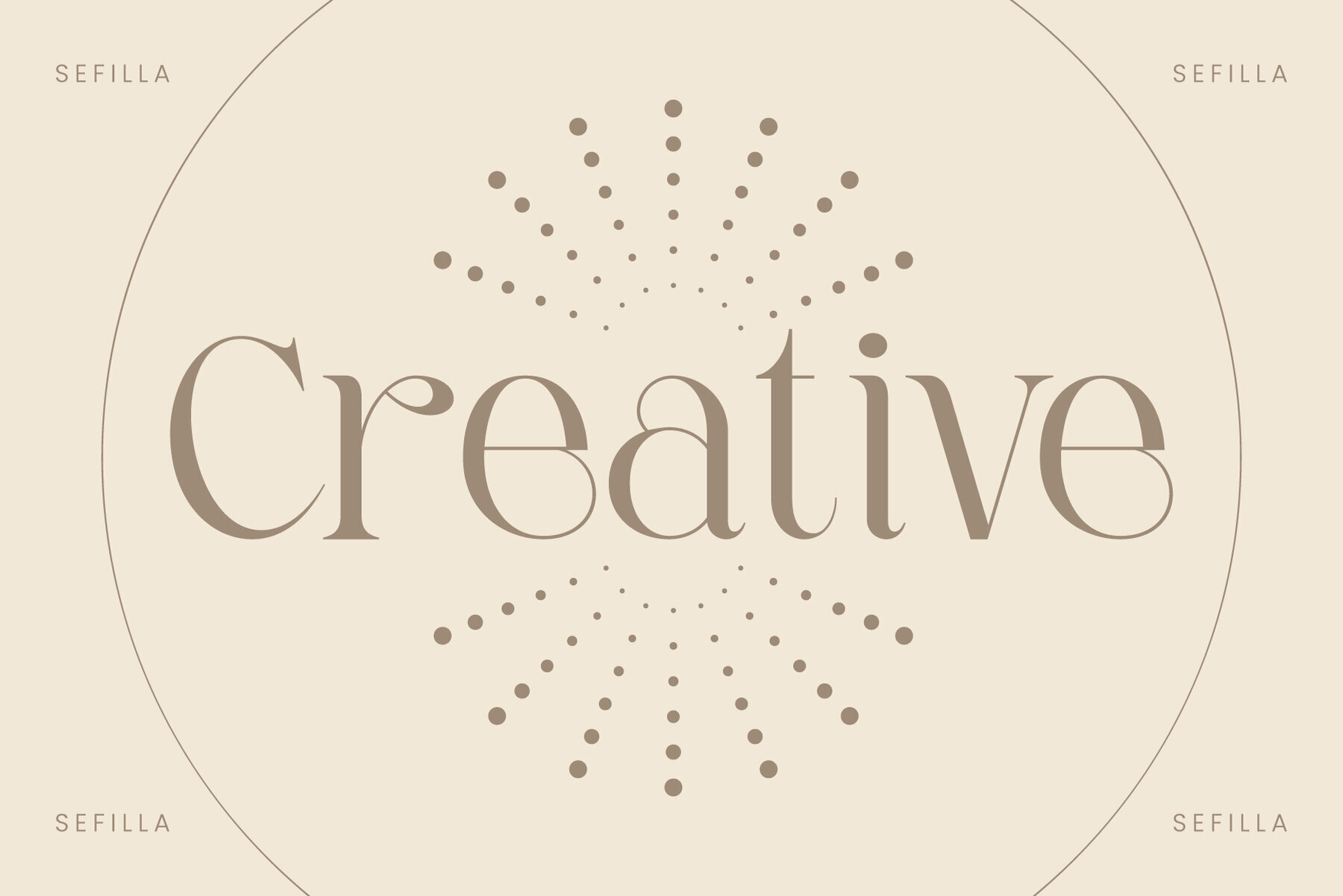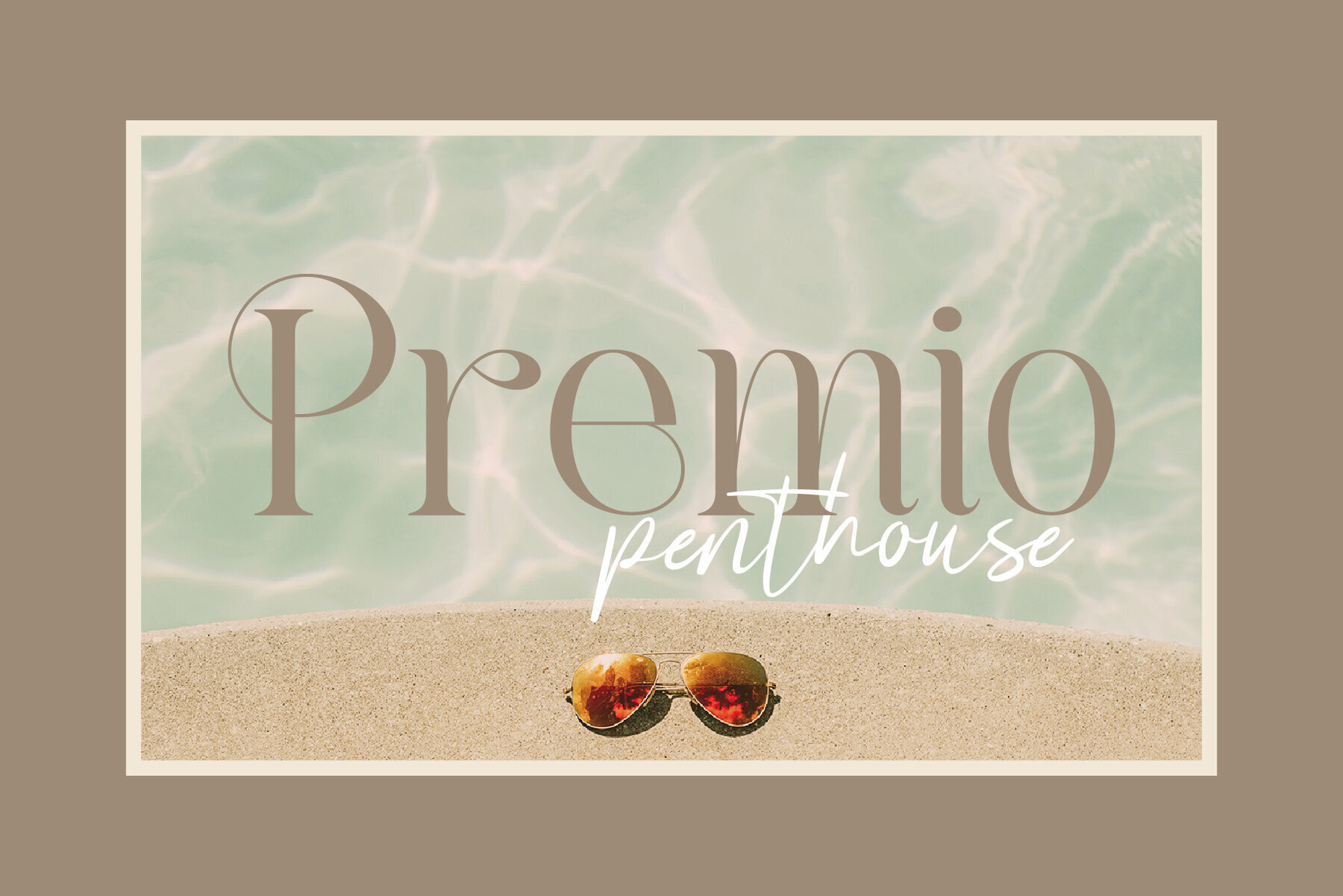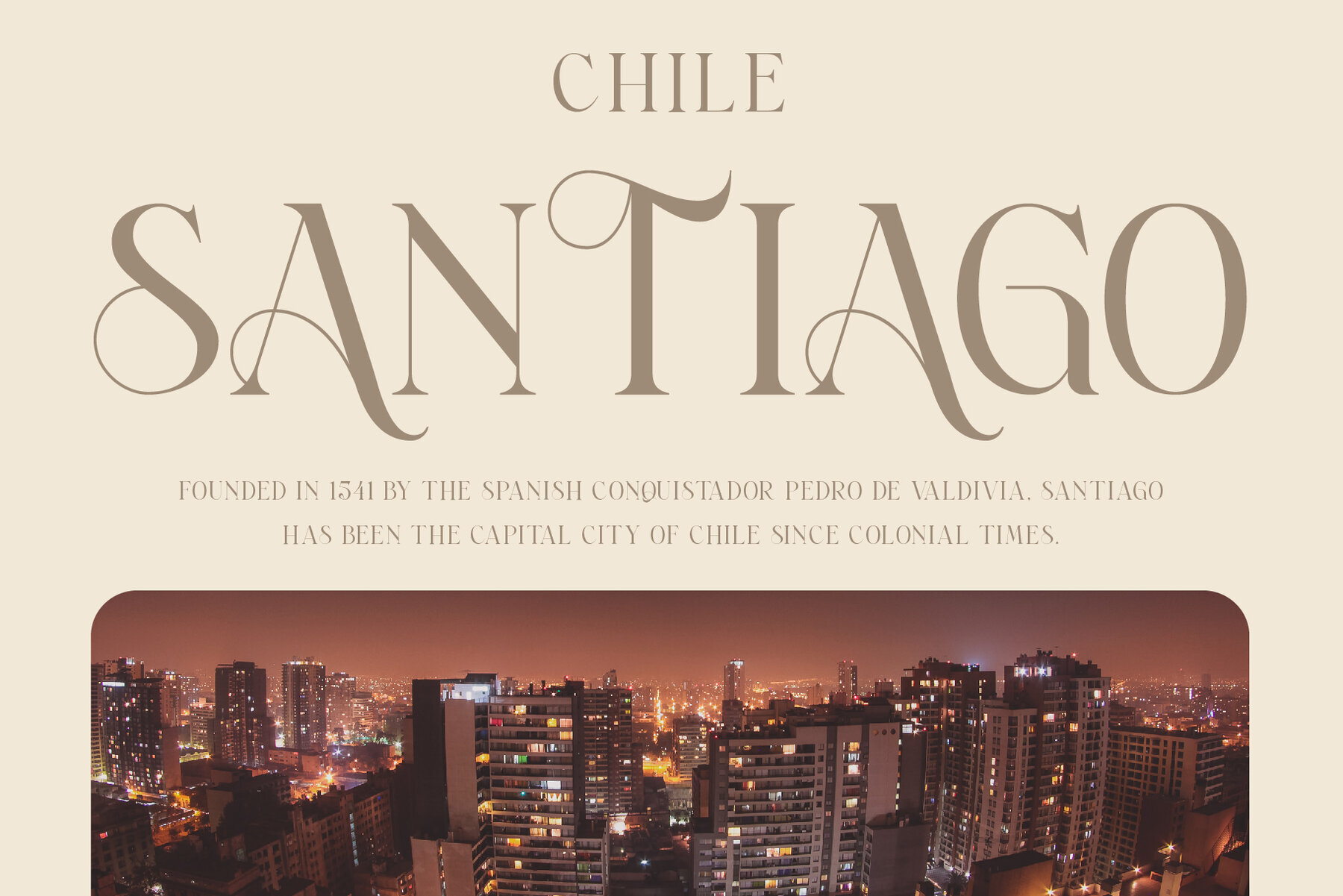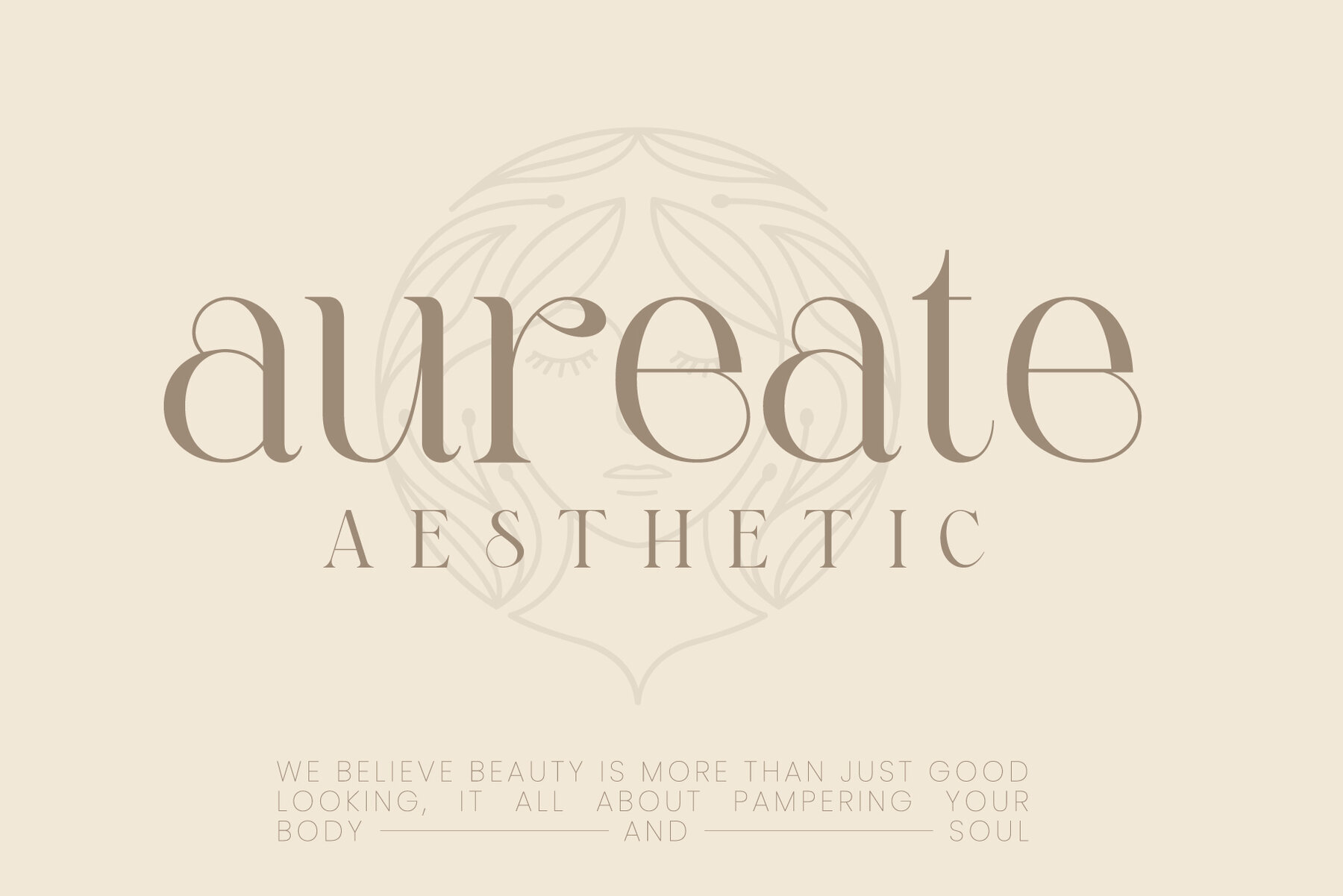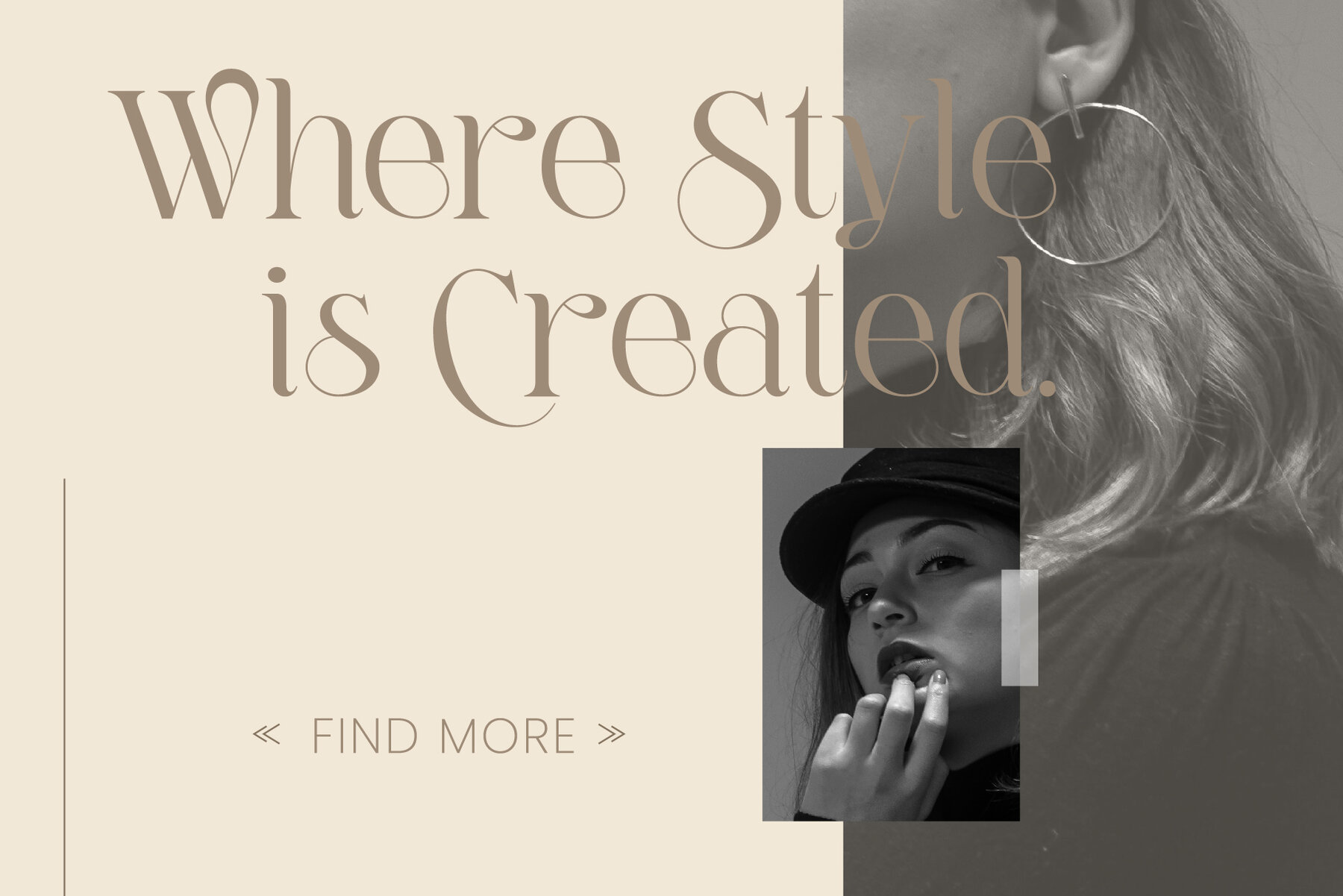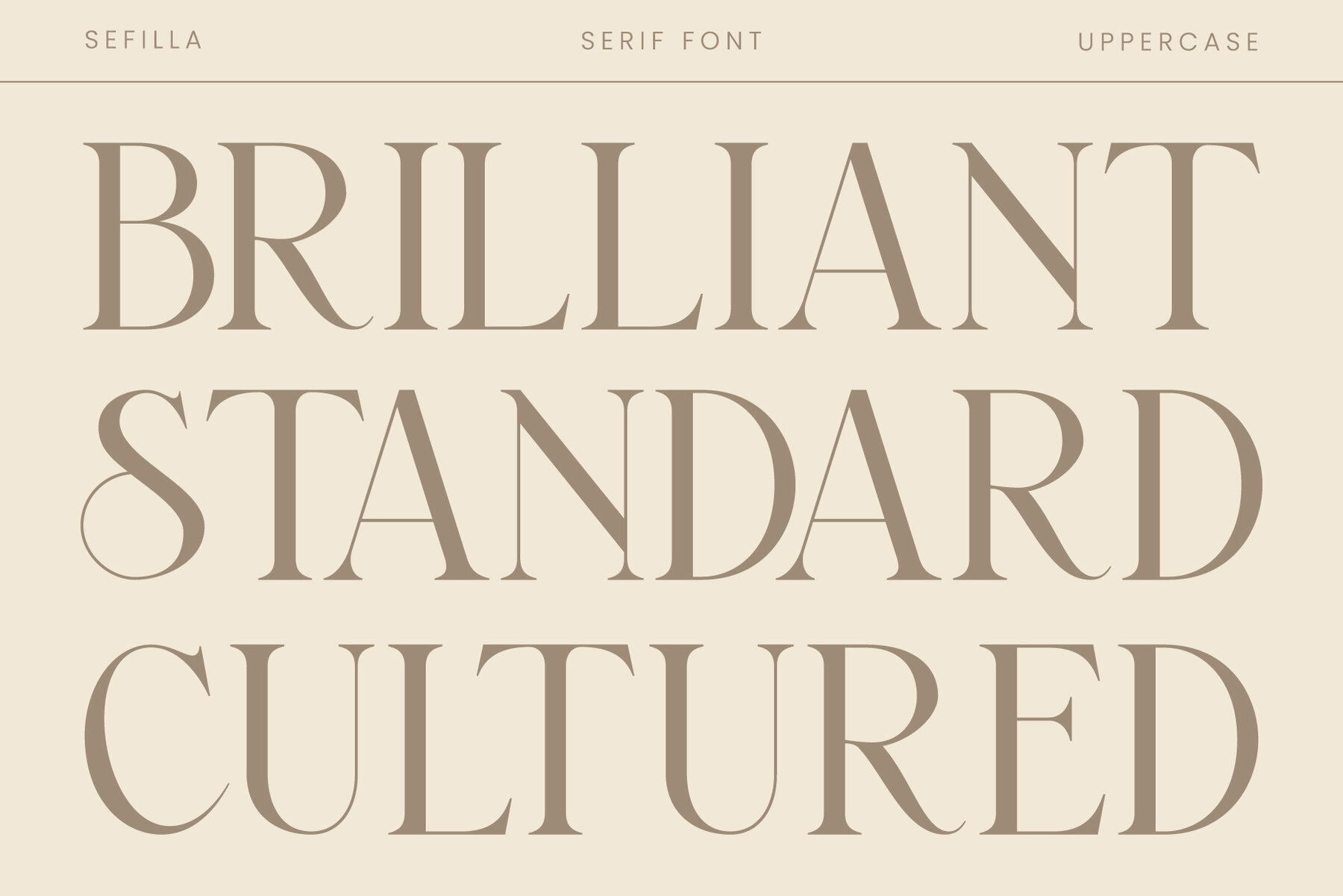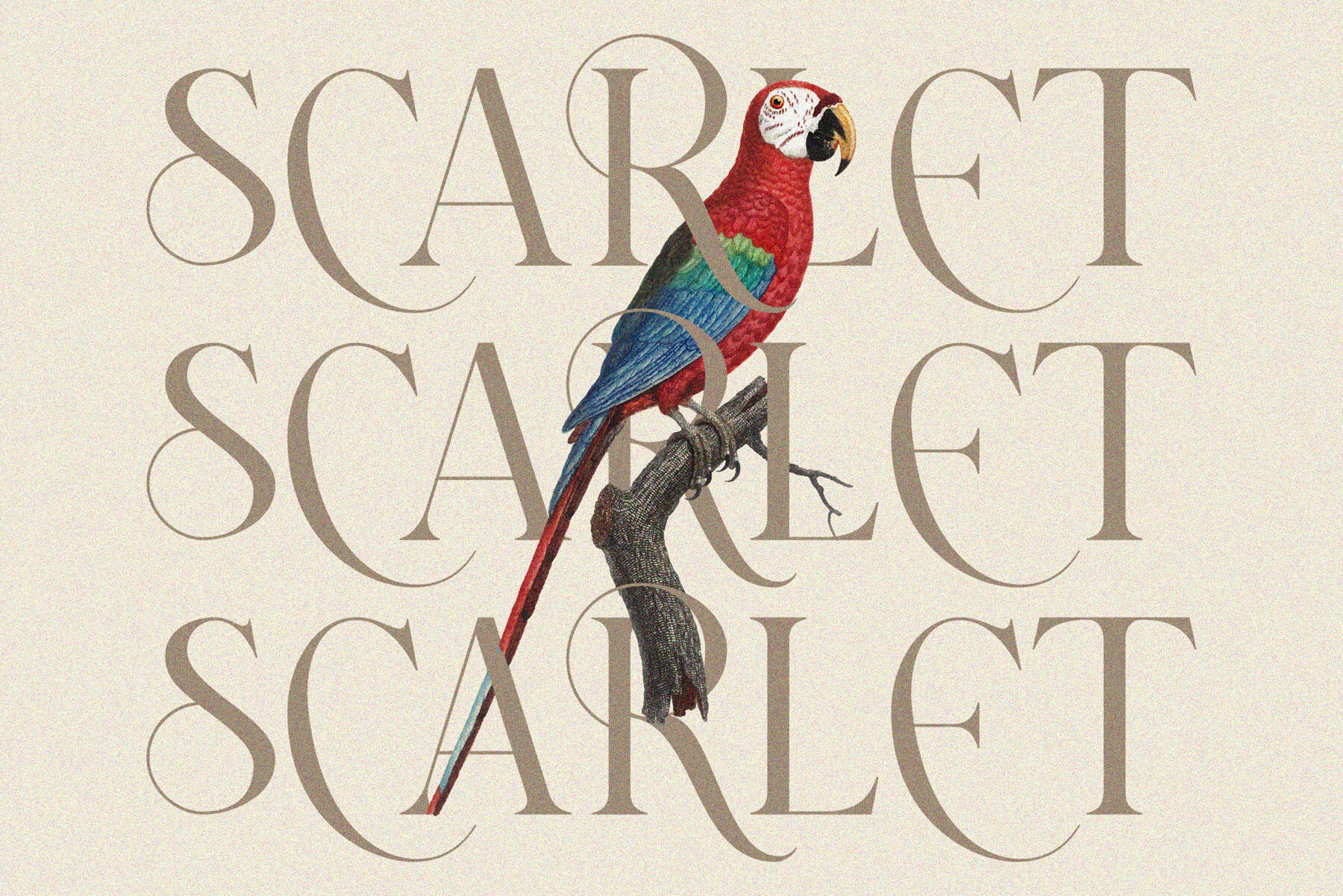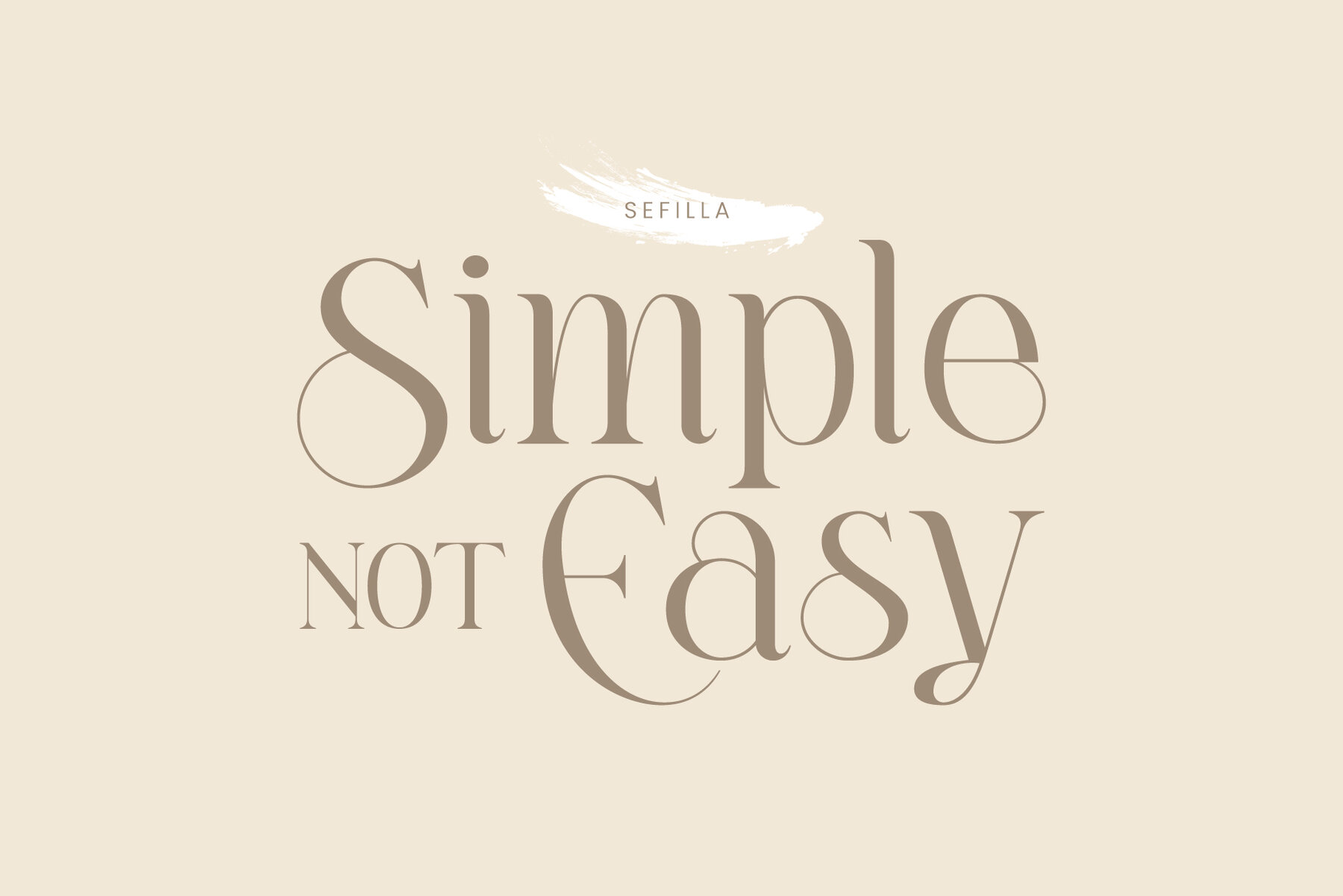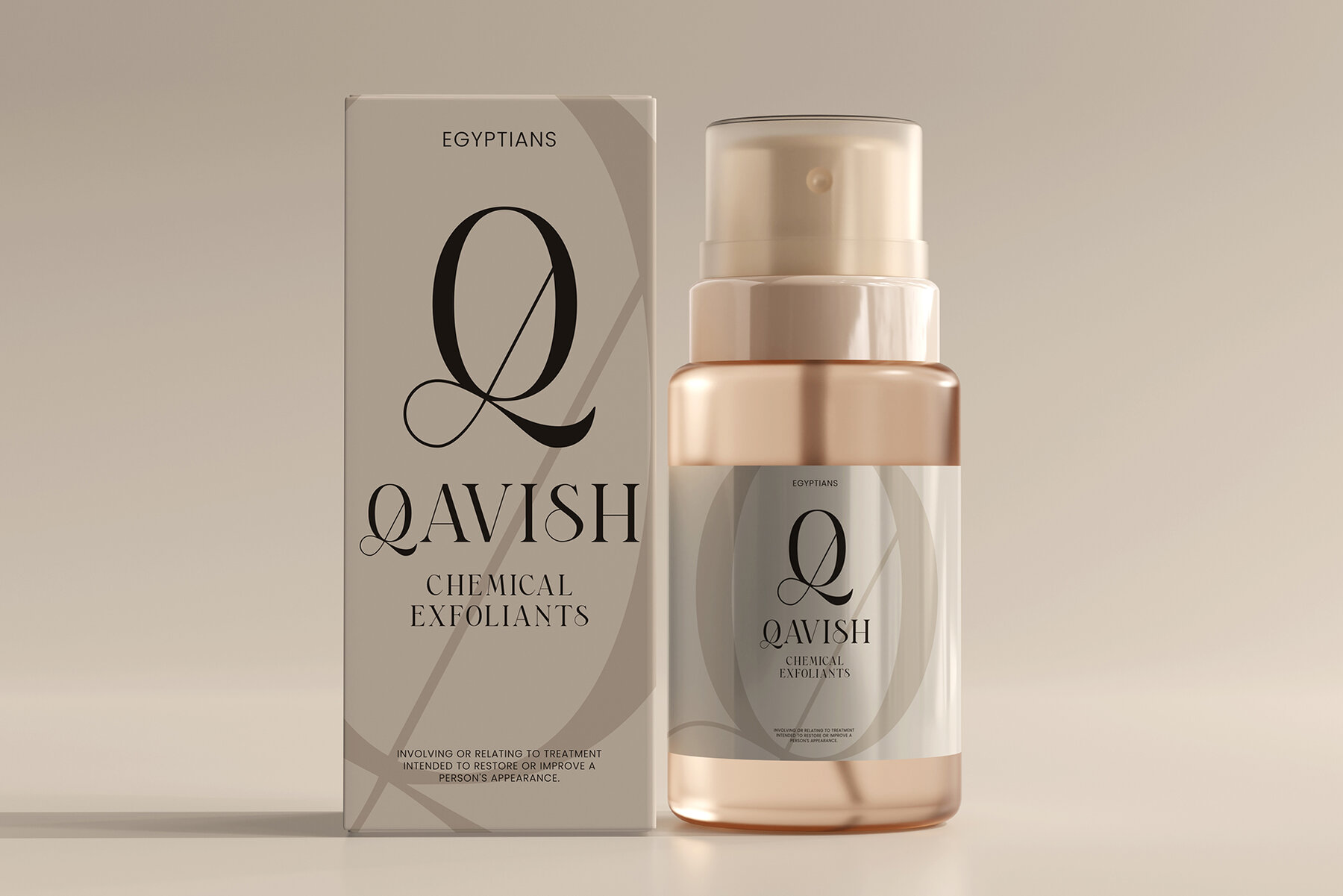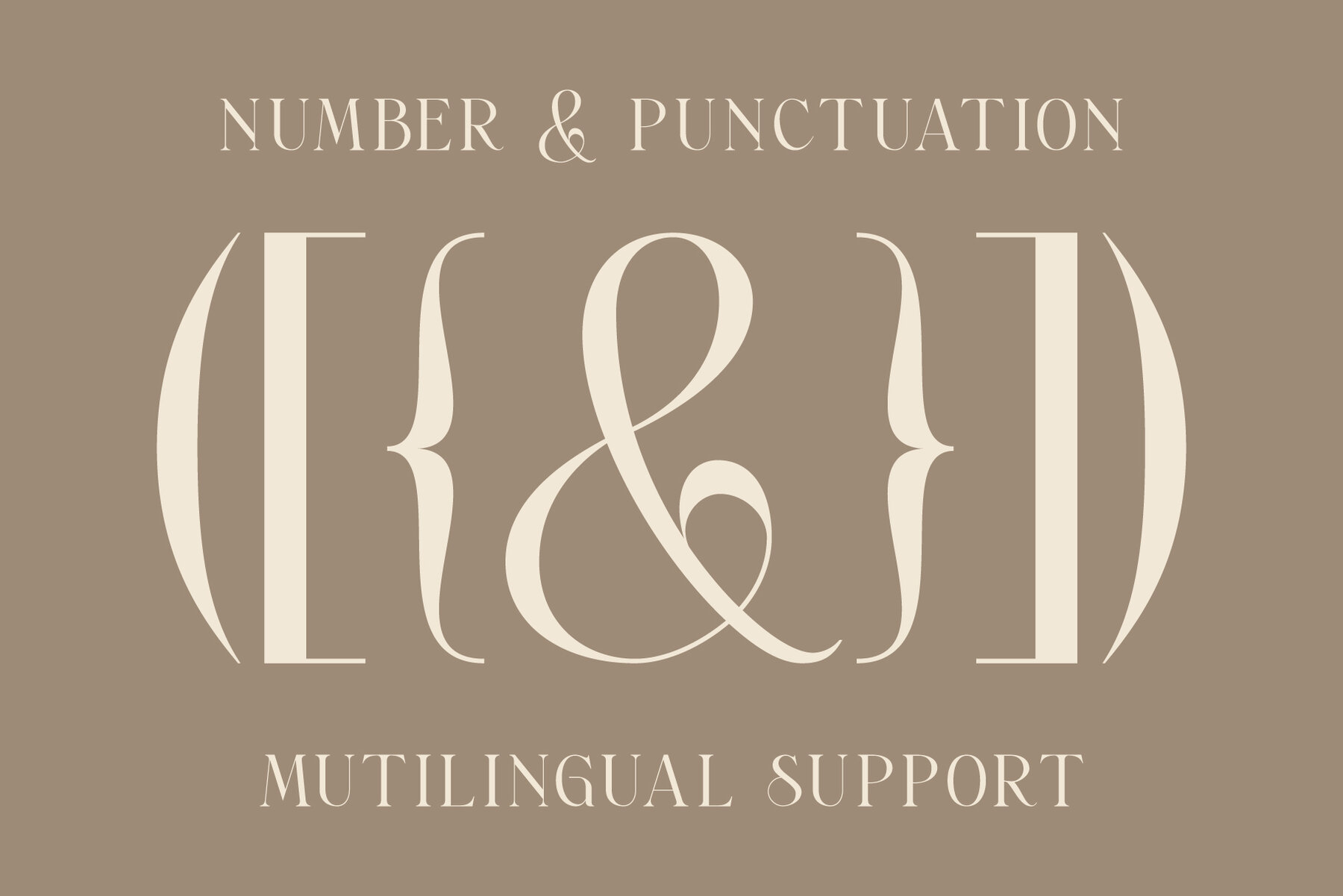
Sefilla: Modern Serif for Elegant Design
Sefilla embodies the attractive combination of modernity and classic serif elegance. Its design caters to those who embrace modern and stylish aesthetics, with a particular flair that appeals to contemporary sensibilities. The font's smooth and consistent character makes it ideal for a variety of applications, from lush, short statements to detailed, extensive text work.
Outstanding Features
• Modern Appeal – Perfectly aligns with current design trends.
• Smooth Consistency – Ensures readability and aesthetic continuity.
• Versatile Usage – Suitable for both concise and elaborate compositions.